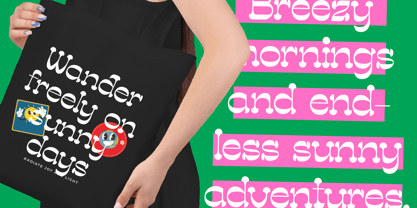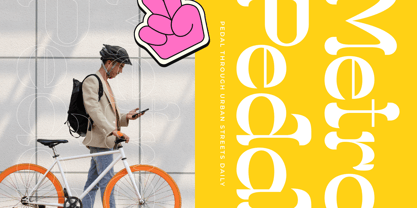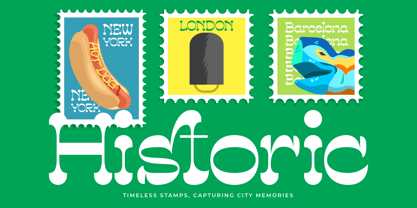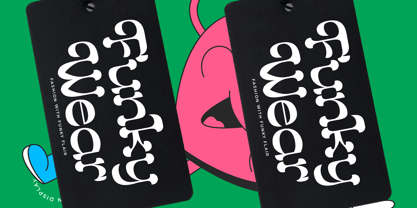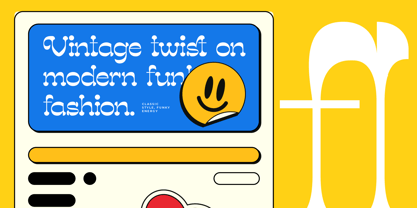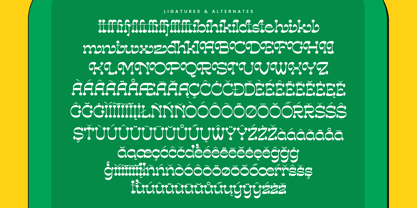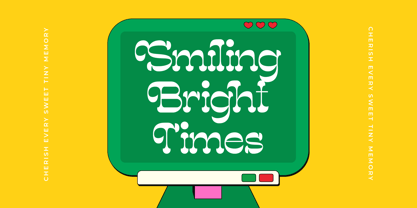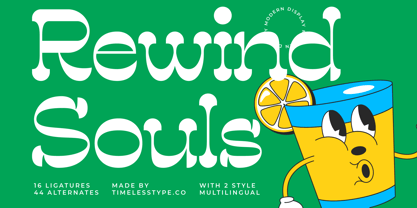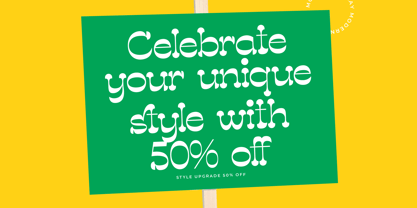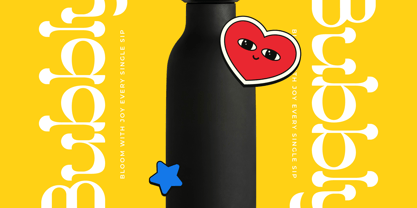
Rewind Souls
La famille de polices Rewind Souls a été conçue par Heru Utama Putra et publiée par Timelesstype Studio. Rewind Souls contient 2 styles et options de package familial.
Rewind Souls - Modern Display Font , from Timelesstype, Suitable for any projects such as: logos, branding projects, homeware designs, product packaging, mugs, quotes, posters, shopping bags, t-shirts, book covers, name card, invitation cards, greeting cards, label, photography, watermark, special events, and all your other luxury and beautiful projects that need a Luxury Serif taste.